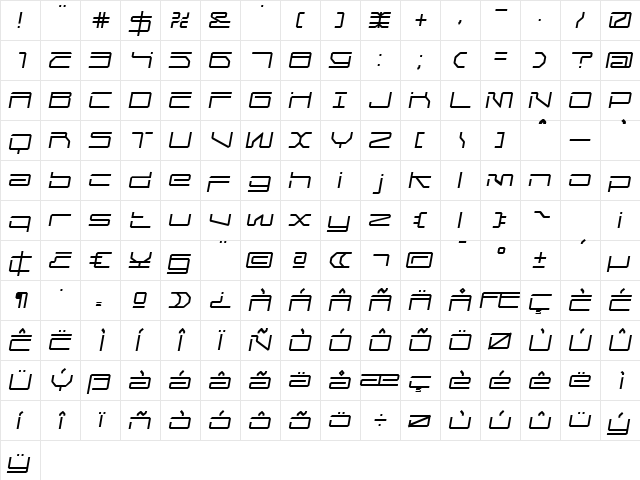
MechwarThin Oblique Regular Font Preview
Design Context for MechwarThin Oblique Typeface
MechwarThin Oblique takes a measured approach to typography — its balanced proportions and neutral character make it a reliable workhorse for both digital and print work. Its italic angle brings a sense of urgency and motion to the letterforms. The delicate stroke weight brings airiness and refinement to layouts.
Pro Tip: Try MechwarThin Oblique for annotation and caption copy alongside an upright companion — the contrast in angle creates a dynamic but ordered typographic system.